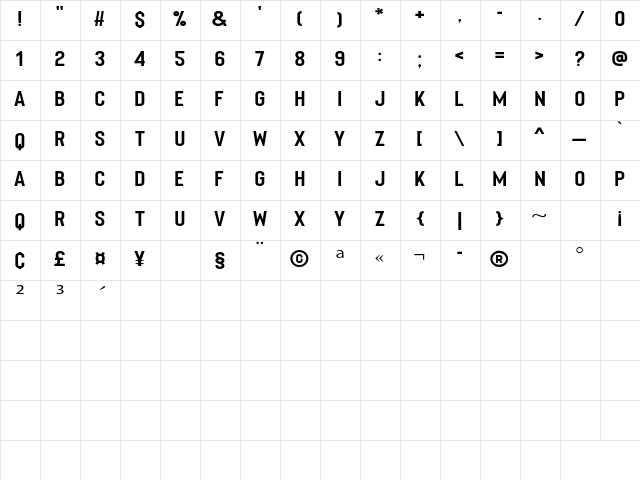
Bartenique Regular
| Designer | Wahyu Sa |
Design Context for Bartenique Typeface
Bartenique offers clean, dependable letterforms without strong stylistic allegiance, making it a practical choice for designers who need flexibility.